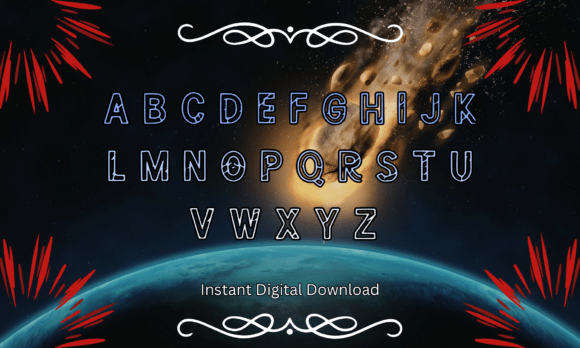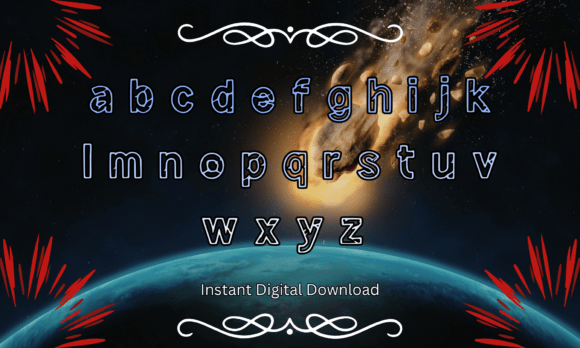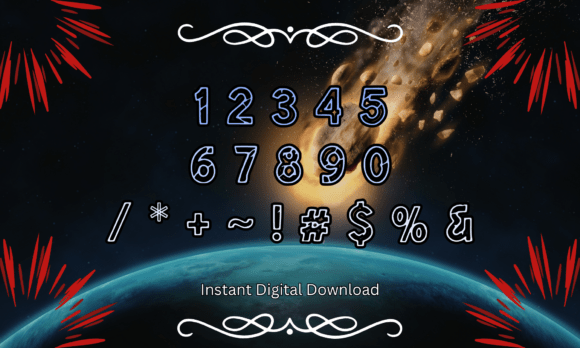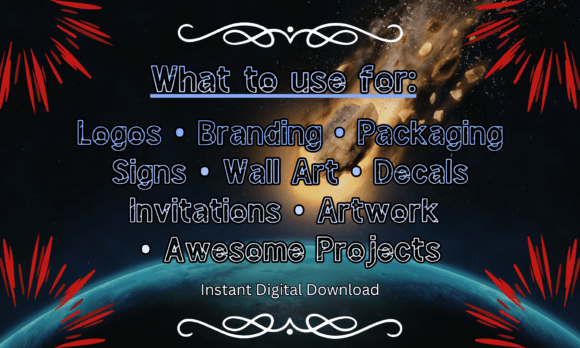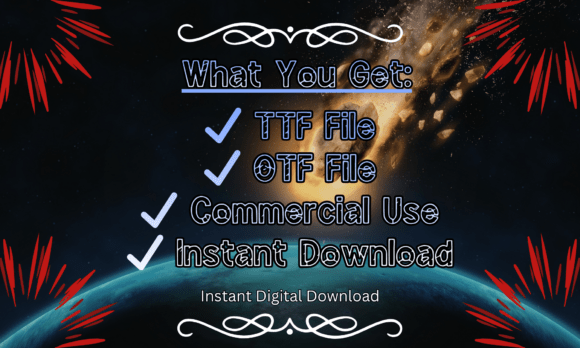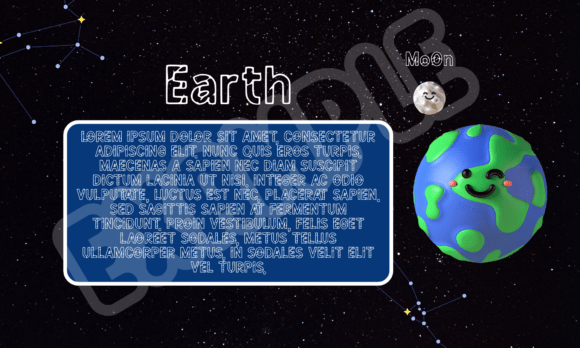
Introduction to Meteor Impact Font Font
Fonts play a crucial role in design, and the Meteor Impact Font font is a typeface that brings both character and versatility to any project. Whether you’re working on a branding project, a website, or a print design, the Meteor Impact Font font offers a unique style that can elevate your work.
Launch your designs into another galaxy with Meteor Impact Font ☄️🌌 This futuristic sci-fi display font features bold cosmic lettering inspired by meteors, deep space, alien technology, and interstellar adventures.
With its sleek, futuristic structure and energetic space-age aesthetic, this font is perfect for projects that need a powerful galactic impact Inspired by meteor showers, sci-fi gaming worlds, outer-space visuals, and futuristic technology, Meteor Impact Font creates an eye-catching, modern look that stands out instantly.
Key Features of Meteor Impact Font Font
Why Choose Meteor Impact Font Font?
The Meteor Impact Font font is more than just a typeface – it’s a design tool that helps you communicate your message with style and clarity. Its unique character set and versatile design make it suitable for a wide range of applications, from elegant invitations to bold headlines.
With its carefully crafted letterforms and balanced proportions, the Meteor Impact Font font ensures readability and visual appeal across all mediums.
What makes Meteor Impact Font font special?
The Meteor Impact Font font stands out with its unique design, exceptional readability, and versatility across various design applications.